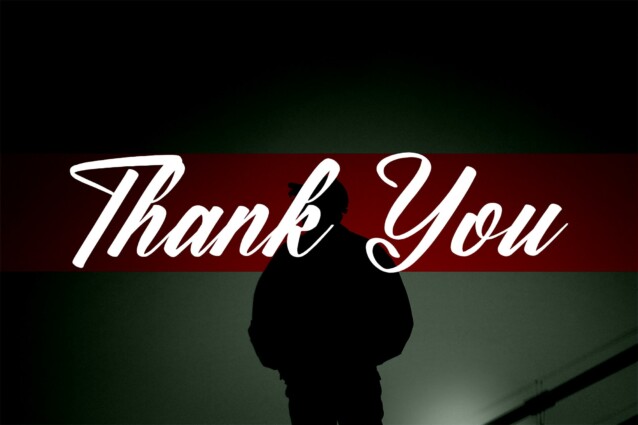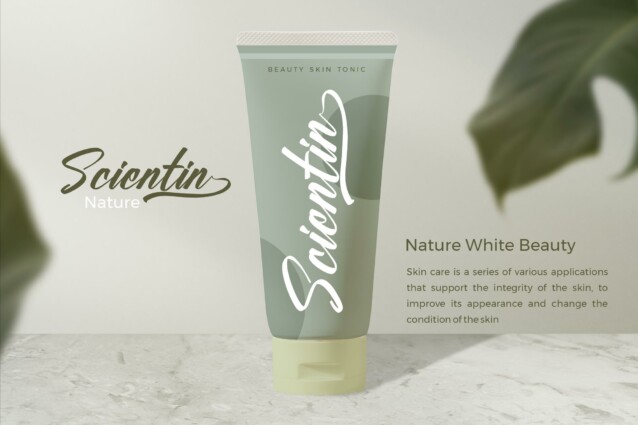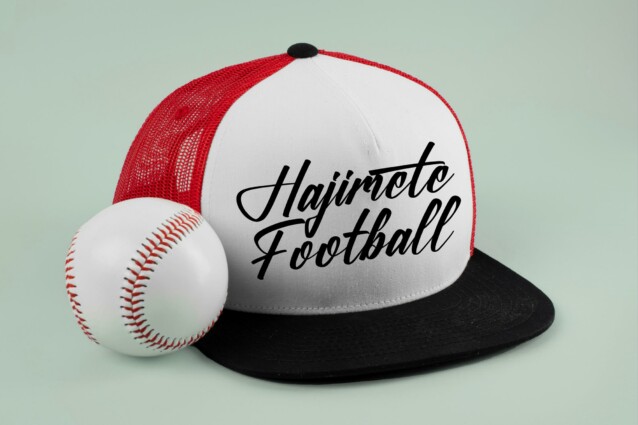
Huntesla Gloficka Font is a modern calligraphy font, suitable for any projects such as: logos, branding projects, homeware designs, product packaging, mugs, quotes, posters, shopping bags, t-shirts, book covers, name card, invitation cards, greeting cards, label, photography, watermark, special events, and all your other lovely projects that need a beautiful script taste.